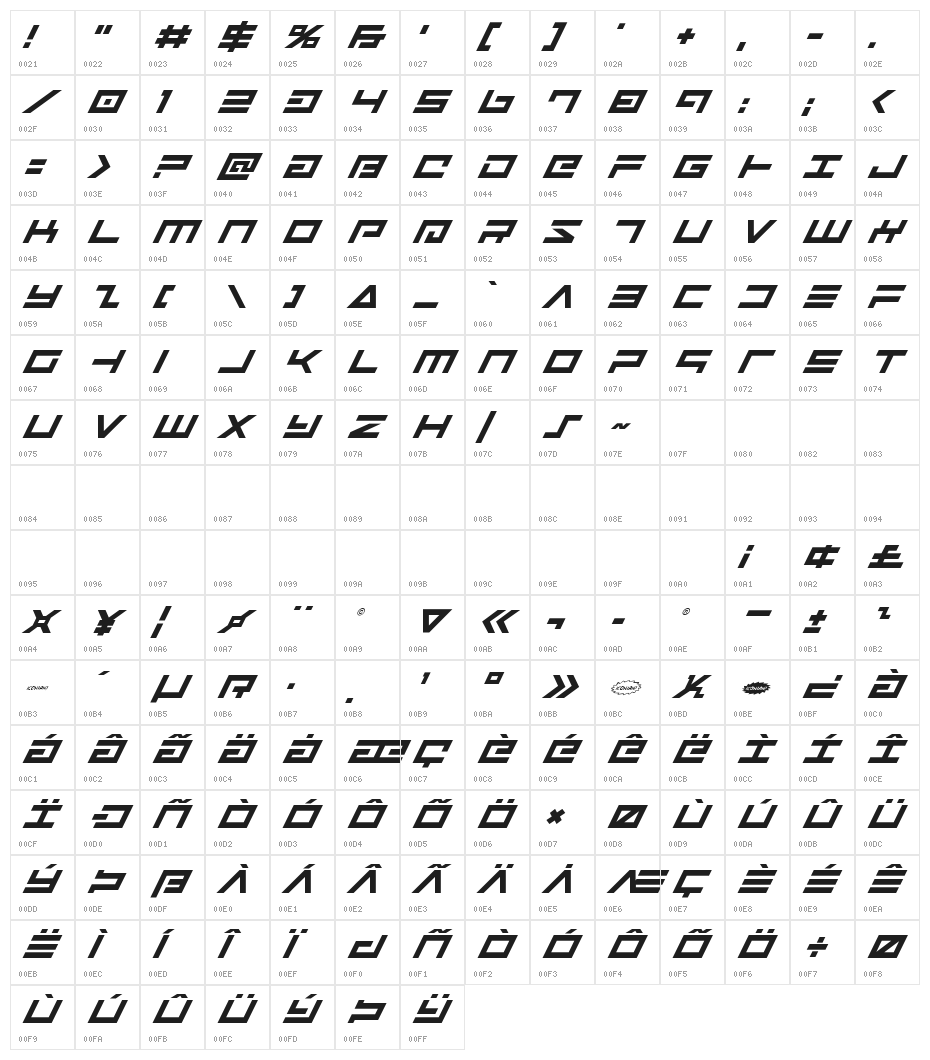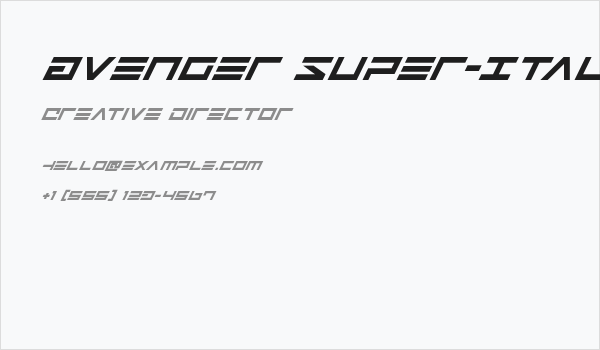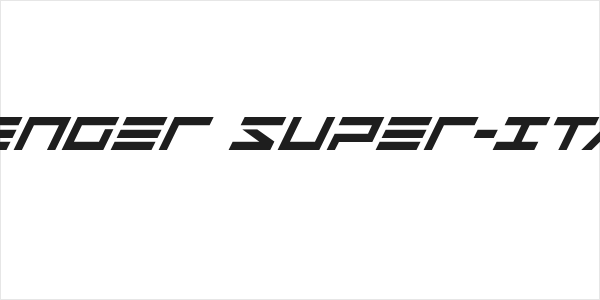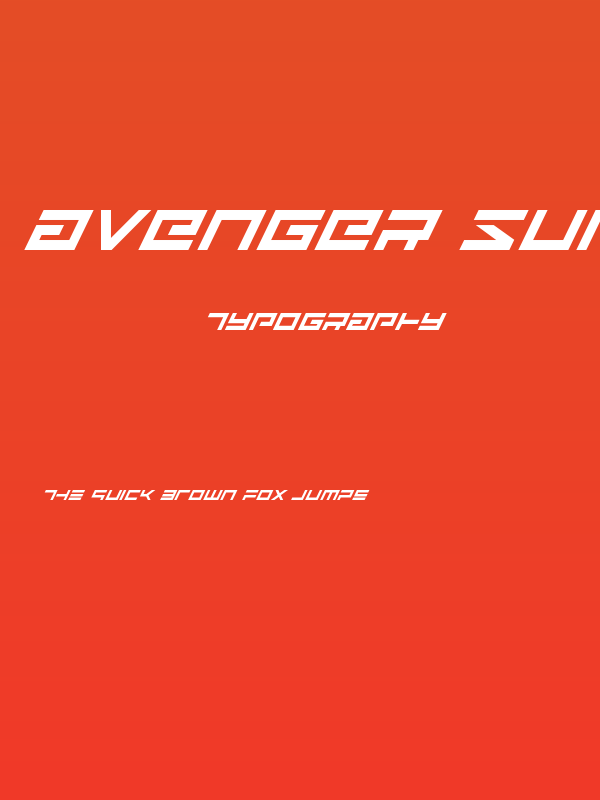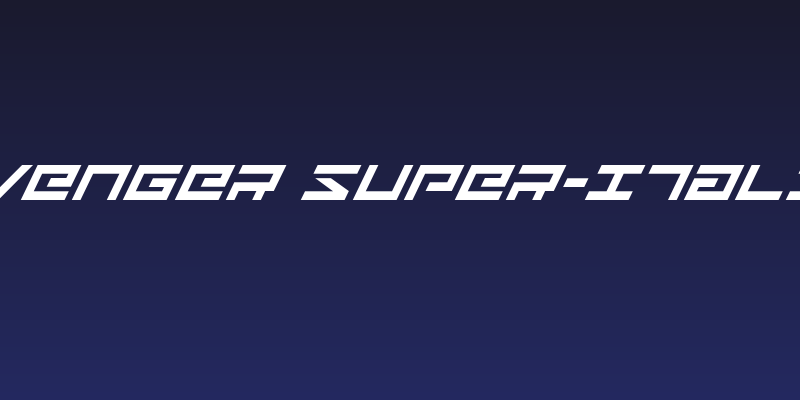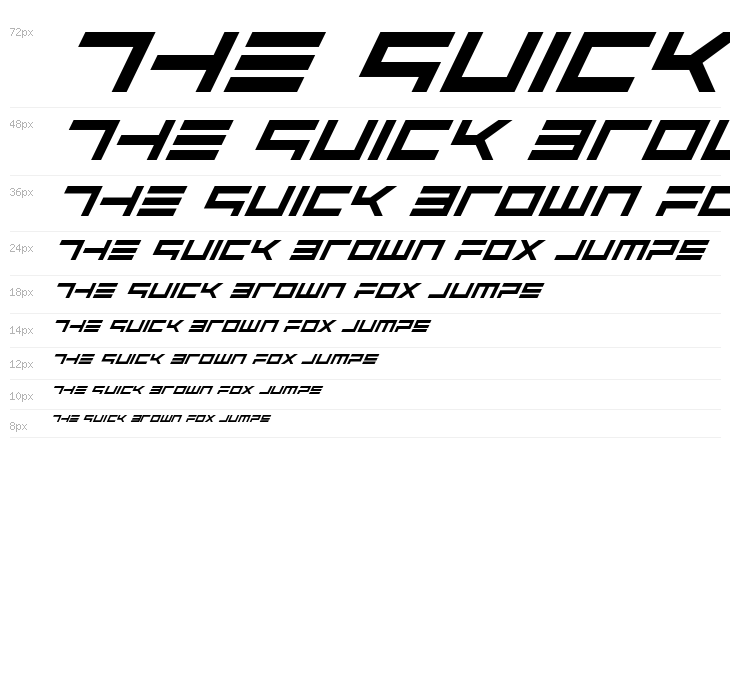
Avenger Super-Italic Font
Avenger Super-Italic Description
This font features a dynamic and futuristic design with a distinct italic slant, giving it a sense of motion and energy. The characters are bold and angular, with sharp edges and a geometric structure that conveys a modern and technological feel. The uppercase and lowercase letters maintain a consistent style, with uniform stroke widths that enhance readability. Numbers and special characters are designed to match the overall aesthetic, ensuring a cohesive look across all text. The font's unique style makes it stand out, suitable for projects that require a bold and impactful visual presence.
Overall StyleFuturistic
Proposed ProjectsIdeal for sci-fi themed designs, video game titles, technology branding, and dynamic posters.